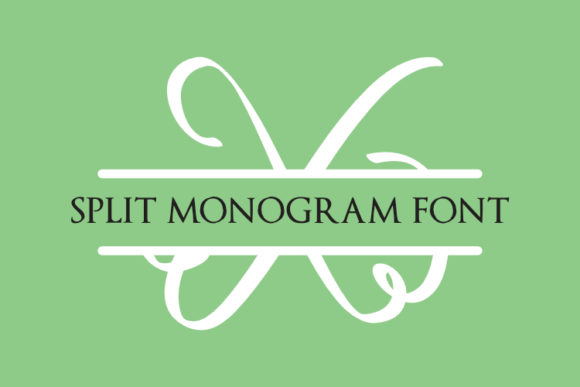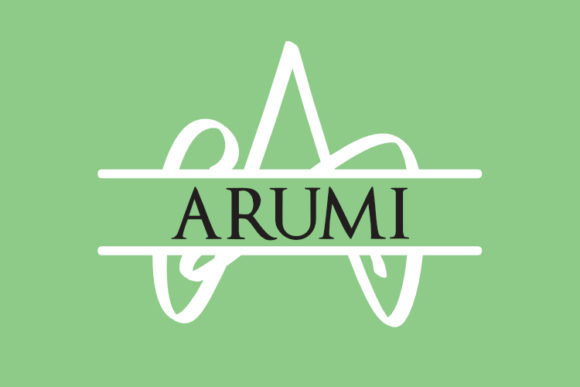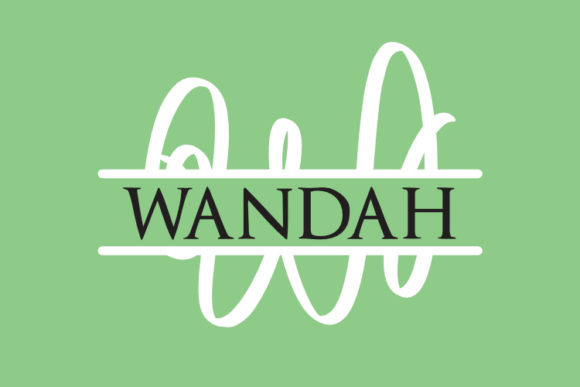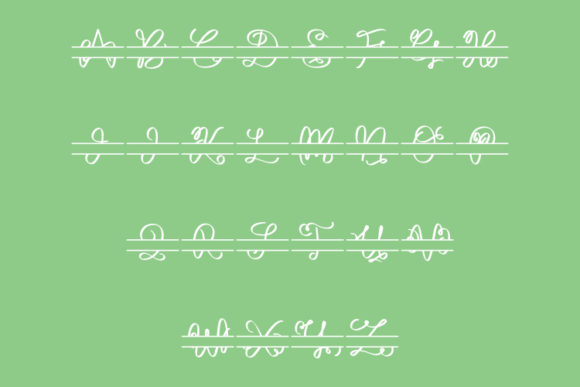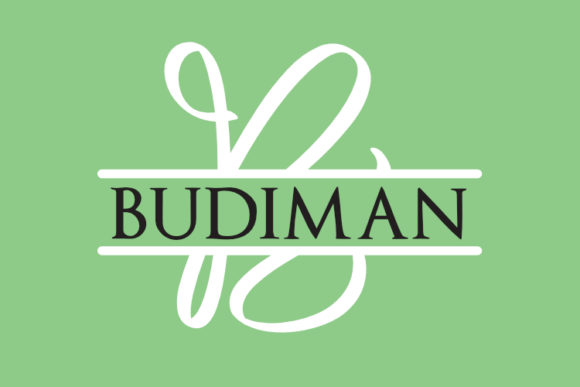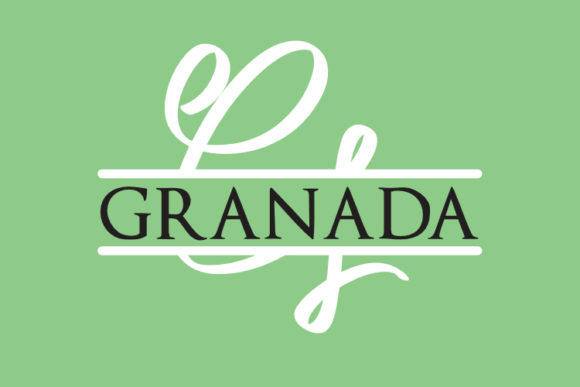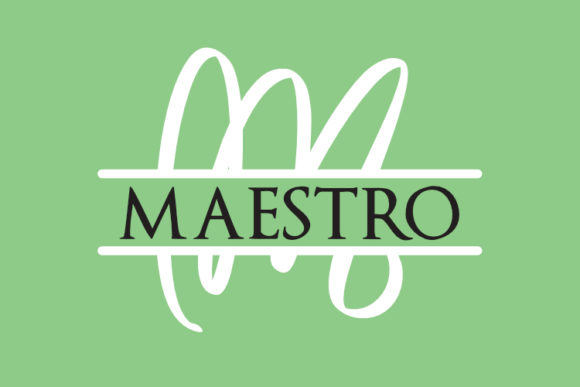
Split Font
About Split Font
Split is a monogram font with a classy and playful feel. It will effortlessly turn any arts & crafts project into a true standout!